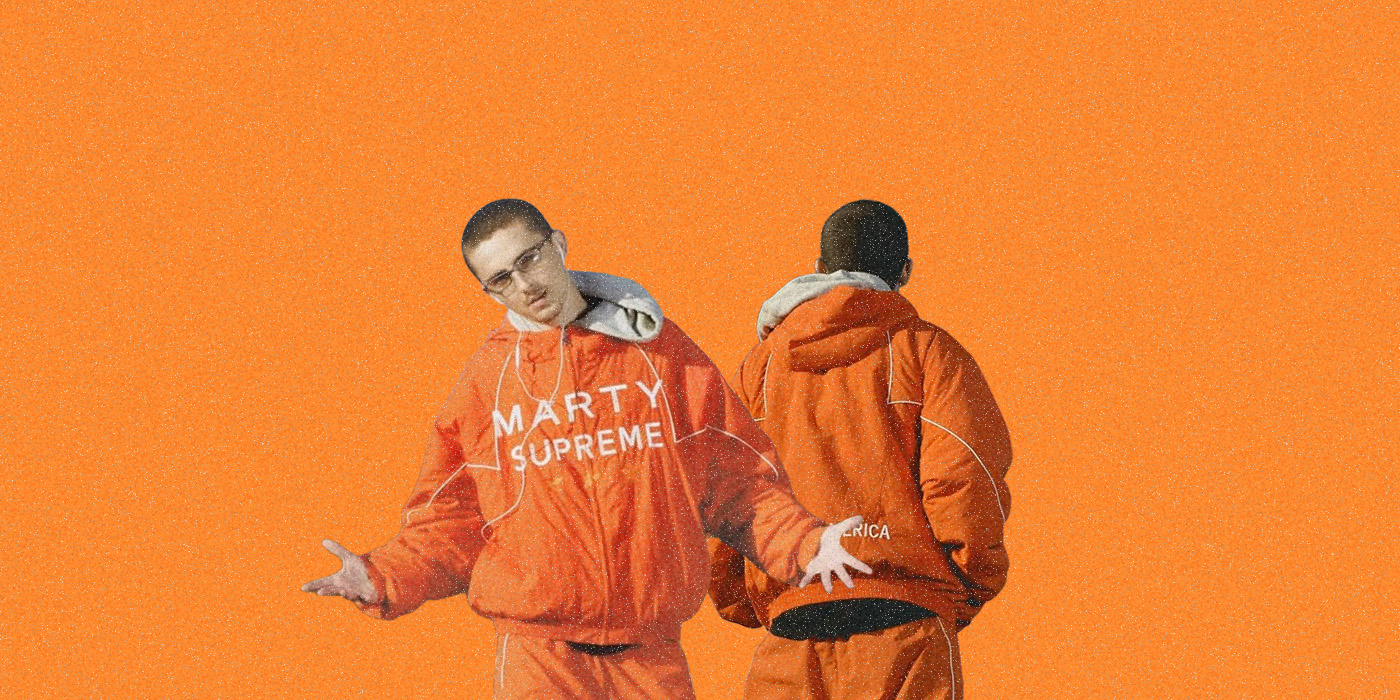
If you’ve been in online spaces, you know A24 is not new to the game of guerrilla marketing. Time and time again they have shown a deep understanding of their audience mostly composed of cinephiles and centennials in previous unconventional campaigns for movies like Hereditary and Materialists. Now, at this moment where the Oscars 2026 nomination are in place, they launched their new film Marty Supreme, that, to put it in single words, it’s a movie about making it big (we say this to avoid spoilers, go see it!). When creating a smart plan for its campaign, they found a match in Timothée Chalamet, an actor who doesn’t shy away from humour and self-awareness with brilliance, making even something like a merchandise piece such as Marty Supreme Jacket a really sought-after item.
Marty Supreme: A24’s Well-Publicized Oscar Contender
Chalamet’s compromise with this campaign can only be compared to his own performance in the movie, crafting a ridiculous narrative that starts with a Zoom meeting with the A24 marketing team, where Timothée explains his ideas for the campaign with an increasing absurdity while the team awkwardly nods and smiles (a scene that feels extremely familiar for most of us working on creative projects). So, let’s walk through to see how they made an iconic fashion object.
We can see how many of the ideas pitched in the call actually came to fruition, like the Wheaties’ cereal box and the continuous use of “falling-apart orange”, a color choice based on the Marty Mauser ping-pong balls from the movie that transcends fiction to appear in a blimp that has flown over different American states, Timothee and Kylie Jenner’s outfits in the movie premiere and even on the iconic Las Vegas Sphere, when it constantly displayed the title and release date over a plain bright orange background while Chalamet stood on the top of the building screaming “MARTY SUPREME IS AN AMERICAN FILM THAT COMES OUT ON CHRISTMAS DAY, 2025”.
The actor made more chronically online appearances, like releasing a song with Esdeekid, an anonymous British rapper who became the protagonist of a conspiracy theory in late 2025 that accused him of actually being Timothee, because of the similarity of their eye shape and Chalamet’s well-known preference for rap music. The pair shut down the rumors by collaborating in 4 Raws (Remix), where we can see them both in the same room, and Timothee shouts out Marty Supreme in his verse: “Since 2017, I’m livin’ the dream, I’m gettin’ the cream, I’m livin’ on theme, I’m doin’ my thing, it’s Marty Supreme”.
What’s the deal with this jacket?
The magic behind the Marty Supreme jacket definitely has to be attributed to Timothee Chalamet’s own marketing skills; to paraphrase an online joke about it: He’s born to be an agency creative, forced to be a superstar in the form of a hyperactive theater kid. His cool public persona with his natural charisma has him in the spotlight and one of the ways he used it was by wearing this merchandise item unabashedly to film events and presentations, intriguing the audience and making it a popular piece. But that’s not all to the story.
Bright red jacket with a hood, featuring bold white text "MARTY SUPREME" and three yellow stars. Sporty and dynamic design on a gray background.
The hoodies are the result from a collaboration between the clothing designer Domi Nahmias and A24, turning out to be a standout item and selling out faster than free hot-cakes in the middle of New York within the Production company’s own pop-up store. They come in several colors, with the Marty Supreme caption in all-caps in the middle of the jacket and with three stars above it in the characteristic orange of the ping-pong balls. What makes them iconic is not only their design, but who wears them and why.
Not long after the pop-up, several stars and industry figures like A$AP Rocky, Kid Cudi and Chalamet’ current girlfriend Kylie Jenner were seen with the jacket in public and in photos online, giving the prized hoodie an impulse as a valued object, making it part of the cultural conversation because these figures all embody the film’s motto of DREAM BIG, making that in a matter of days, with the wits of a movie protagonist wanting to promote his newest film and a team of decided creatives behind, a simple hoodie turned out to be an icon: the Marty Supreme jacket.
A collage features people wearing "Marty Supreme" jackets, each with three orange stars. The mood is cheerful and stylish, conveying a sense of trendy fashion.
Some of the celebrities wearing the Marty Supreme Jacket
The Typography of Marty Supreme
Now, let’s talk about the two typographic compositions that make up the identity for the Marty Supreme movie. First, we have the main poster, featuring a customized stretched version of Gill Kayo Condensed, a font designed by Eric Hill for Monotype in 1936. This bold choice is supported by the classic Helvetica in its condensed version, also issued by Monotype, and Bee by URW, a digitization of Filmotype’s “B-series”, a group of fonts commonly used for credits on movie posters and crafted with an extra-condensed weight in order to fit as many names as possible.
A movie poster features a man in glasses and a white tank top, text showing three fonts: "Helvetica Condensed," "Gill Kayo," and "Bee" with arrows pointing to various text elements, set against a dramatic, dimly-lit backdrop.
The movie actually features the second logo inside the fiction, specifically on the ping-pong balls branded for Marty Supreme. We are still on the hunt for the fonts featured in this specific logo, besides the one used for the DREAM BIG phrase, which is Stonetype by Coert De Decker for Kustomtype. He designed the font based on his own experience as a stonemason, finding inspiration in the often hand-drawn typefaces they used in the 70’s and 80’s, achieving both an automation of labor for current stonemasons and also the availability of this typographic heritage for any design project, including the Marty Supreme jacket.
We hope that the curious case of Marty Supreme and its subversive marketing campaign makes you think about how even in the clean and extra curated world of Hollywood you can find interesting ideas that not only revel in accomplishing their goal of making you see a movie but also be a show of creativity in service of entertaining and serving ideas that create conversation and makes crossovers between fashion, design and even music (we see you, Timothee) to give the world with something to talk about, or wear it.